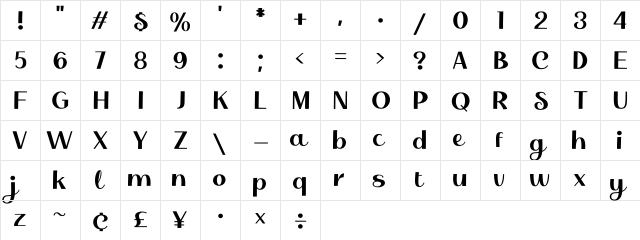
Belmist Regular
Design Context for Belmist Typeface
Belmist is a composed and adaptable typeface that performs quietly and consistently across a wide range of design contexts.